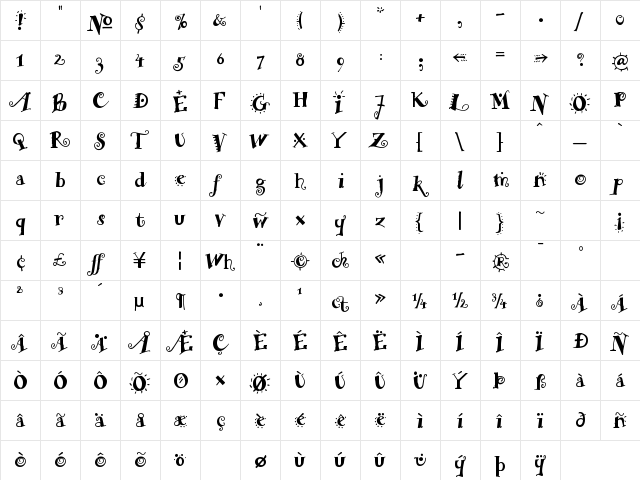
RemedyDouble Regular
Design Context for RemedyDouble Typeface
RemedyDouble is a composed and adaptable typeface that performs quietly and consistently across a wide range of design contexts.